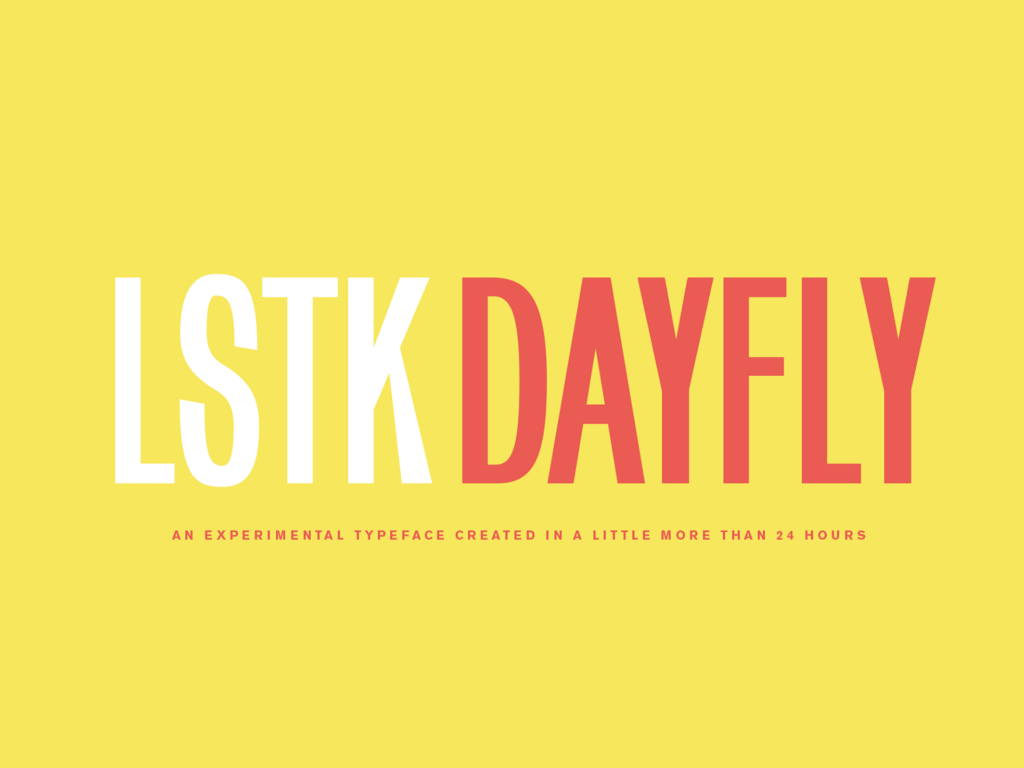
LSTK Dayfly The typeface LSTK Dayfly was created in a little more than a day at the OPEN OFFICE event at VIENNA DESIGN WEEK. The name “dayfly” derives from the word “mayfly”, an insect that lives for the average of a day only.